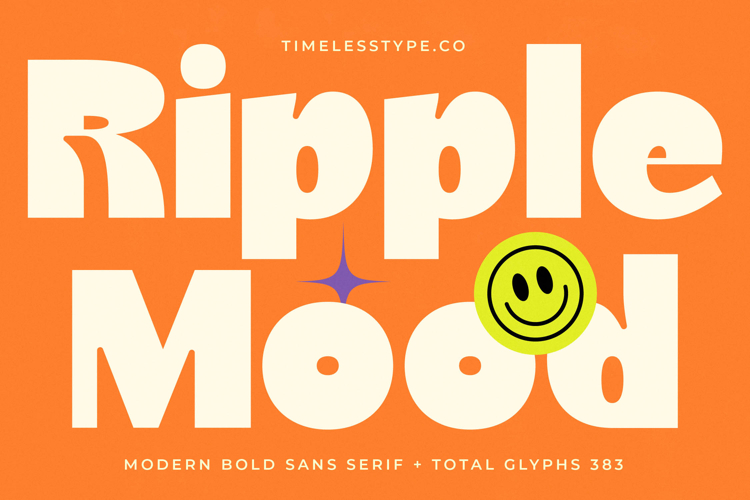
Ripple Mood - Modern Bold Sans Serif
Ignite your designs with undeniable presence. Introducing Ripple Mood - Modern Bold Sans Serif, a truly captivating typeface that combines modern sensibilities with a distinctive, approachable charm. Its robust letterforms and bold weight ensure immediate visibility and a memorable impression, perfect for capturing attention in any creative endeavor. This font projects an aura of friendly sophistication, making it an ideal choice for brands seeking a unique yet highly legible identity.
Elevate your brand's visual storytelling with exceptional clarity and style. Ripple Mood - Modern Bold Sans Serif is perfectly suited for impactful branding, editorial design, dynamic packaging, and eye-catching web headers. Its strong, contemporary aesthetic makes it an ideal choice for magazine layouts, advertising campaigns, poster design, and any project demanding a typeface that is both expressive and highly readable. Experience how it effortlessly commands attention and communicates confidence.
Expand your creative reach without boundaries. With its extensive multilingual support, Ripple Mood - Modern Bold Sans Serif adapts seamlessly across global markets, making it incredibly versatile for international projects. This comprehensive language coverage ensures your message resonates worldwide, maintaining consistent brand identity and professionalism no matter the locale. It’s engineered for universal appeal and broad application, supporting diverse linguistic requirements with ease.